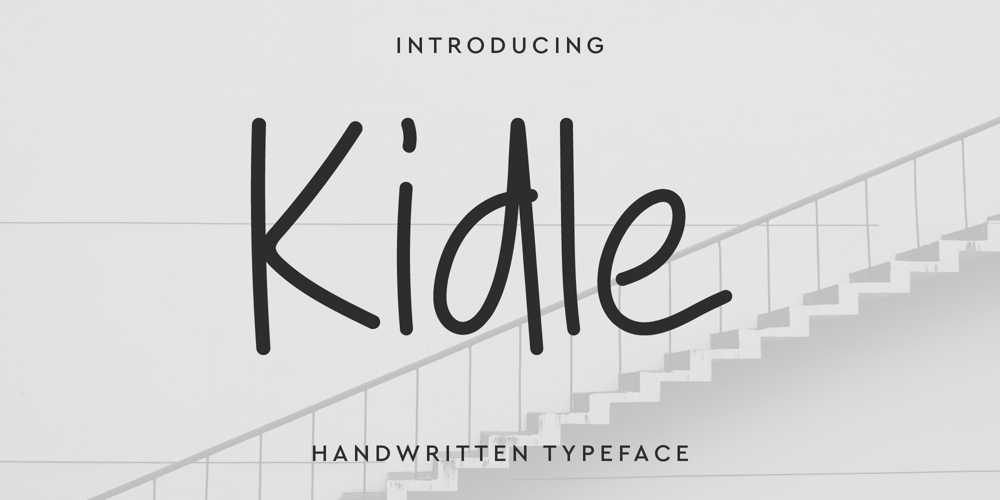
Kidle Font Family was designed by Iwan Alwan and published by Artiveko. Kidle contains 2 styles and family package options. Kidle – a font crafted by Iwan Alwan, exuding a unique handwritten style.With its distinctive flair, Kidle brings a touch of individuality to any design. Perfectly suited for fashion and boutique ventures, this font adds a dash of personality to logos, branding materials, and product packaging. Its playful yet elegant strokes capture attention and evoke a sense of creativity.Kidle is more than just a font; it’s a statement, a reflection of artisanal craftsmanship, and a testament to the beauty of handmade aesthetics. Embrace the charm of Kidle and elevate your designs with its irresistible allure.